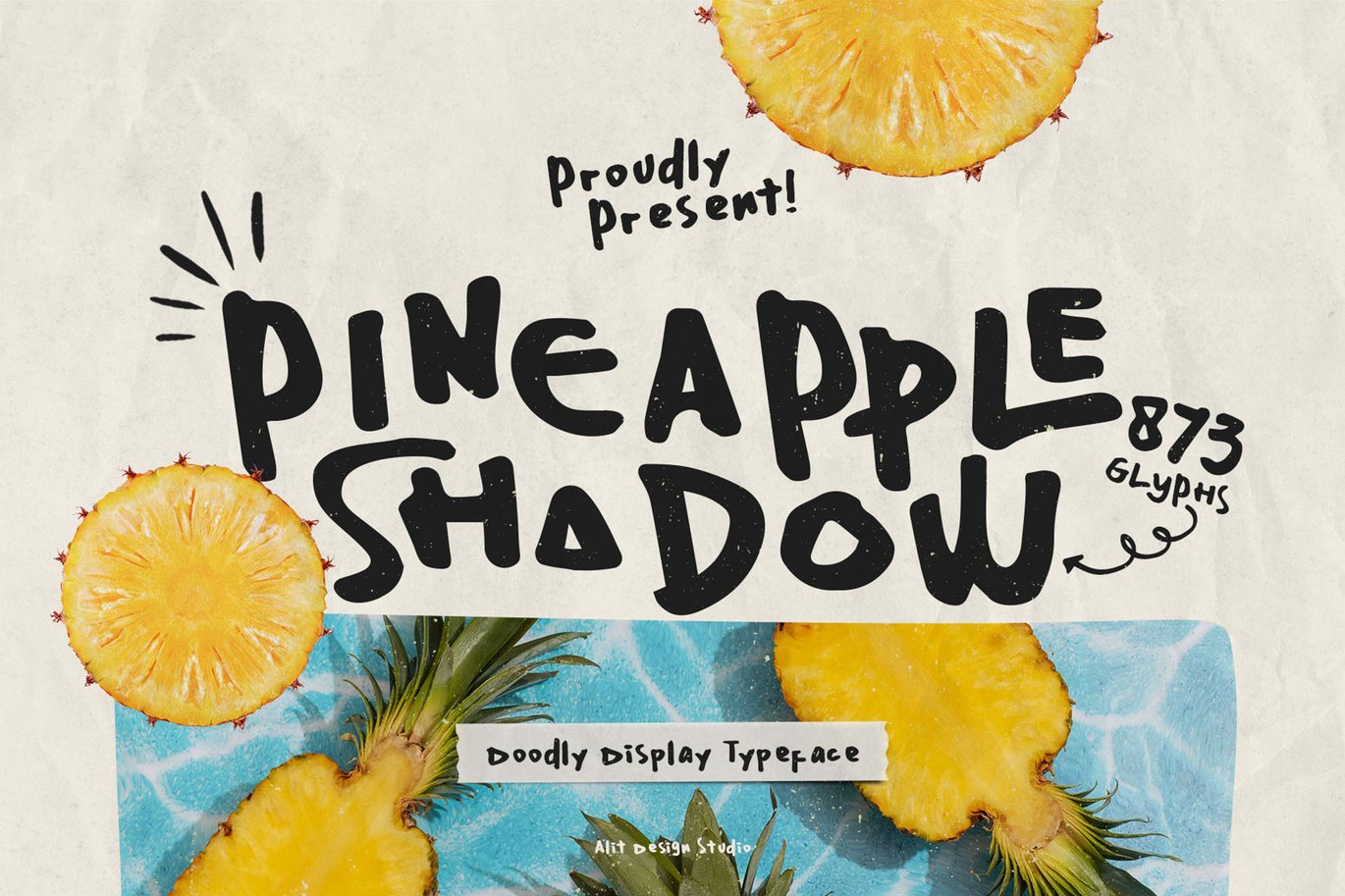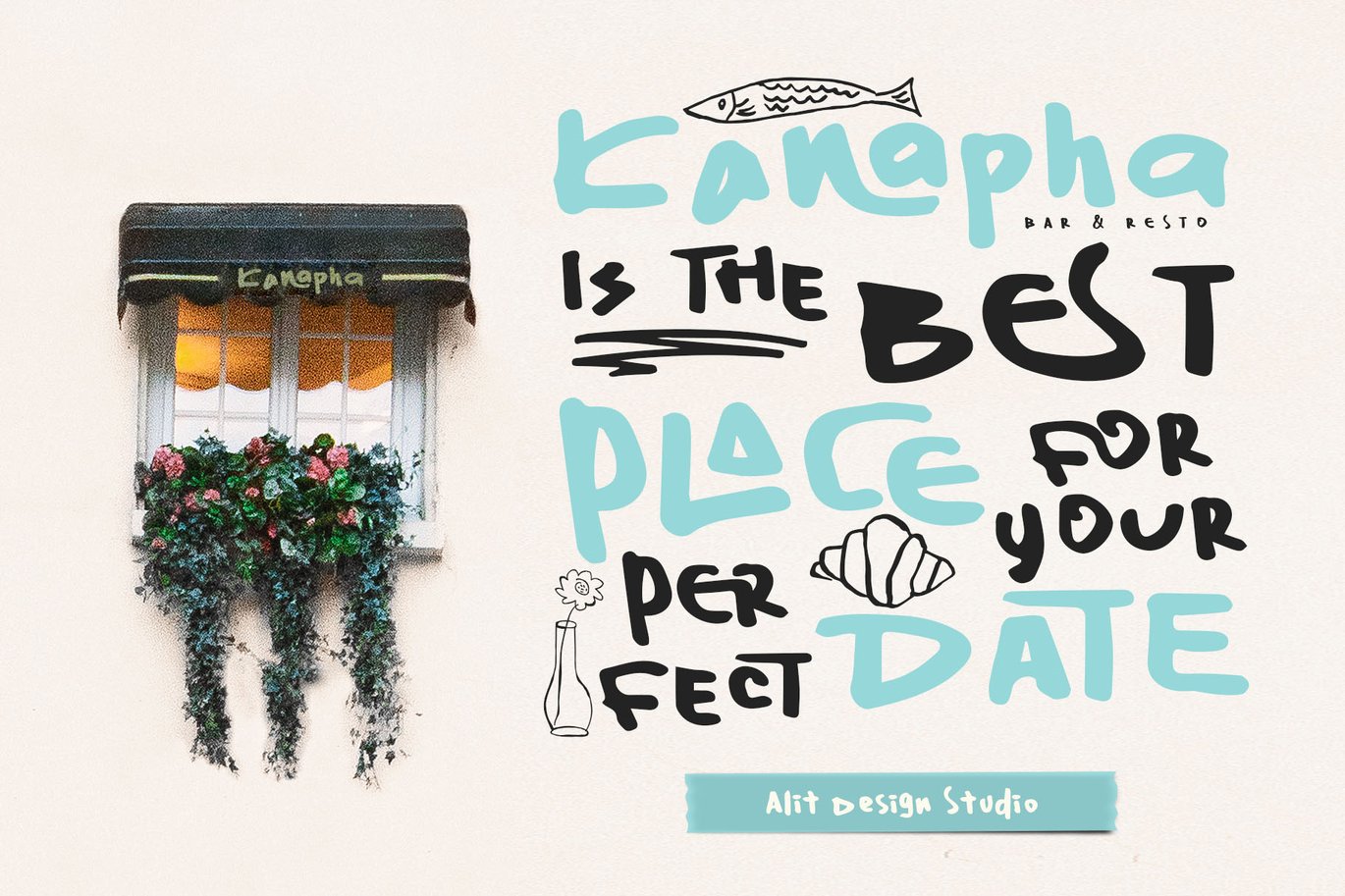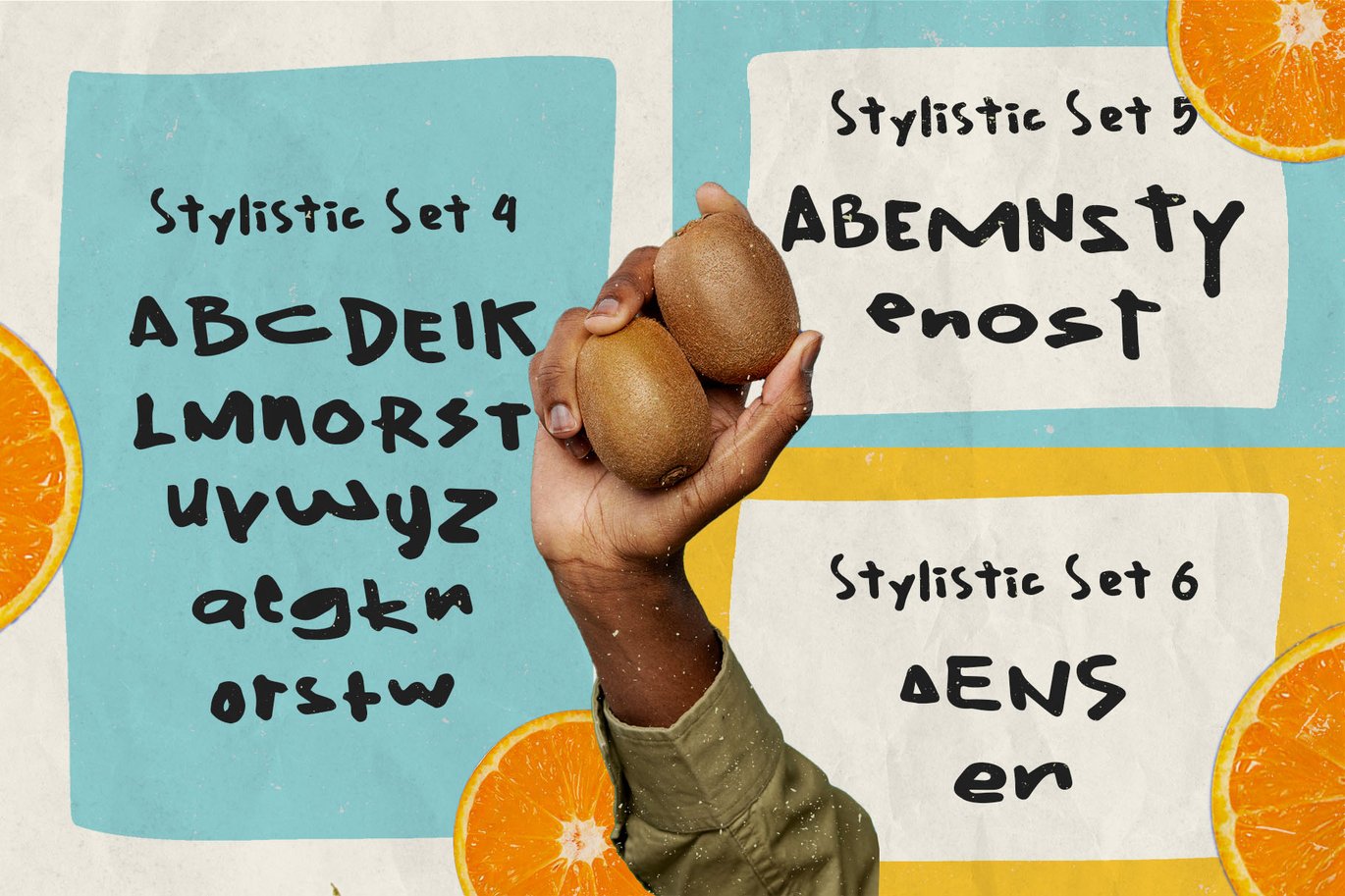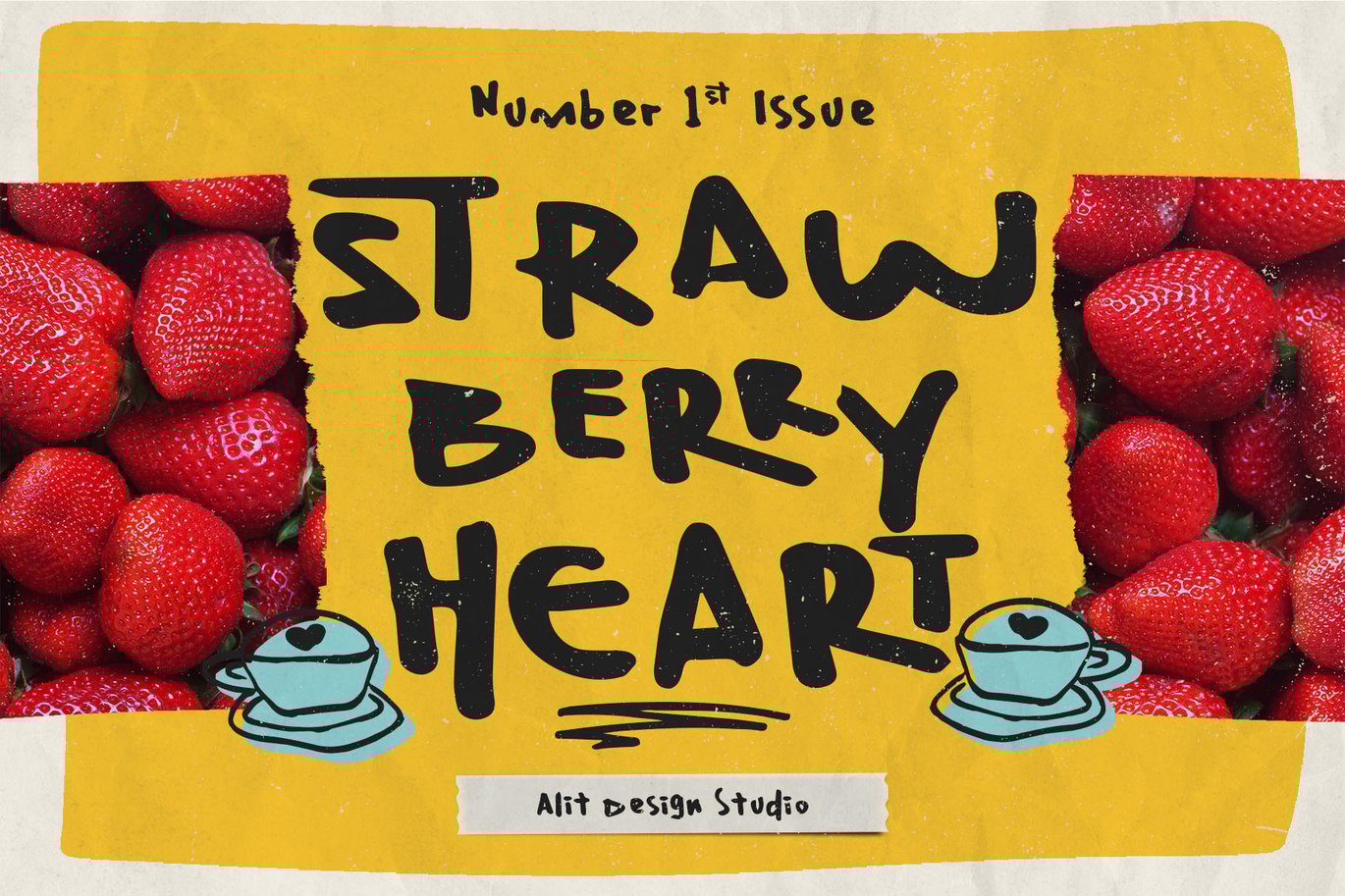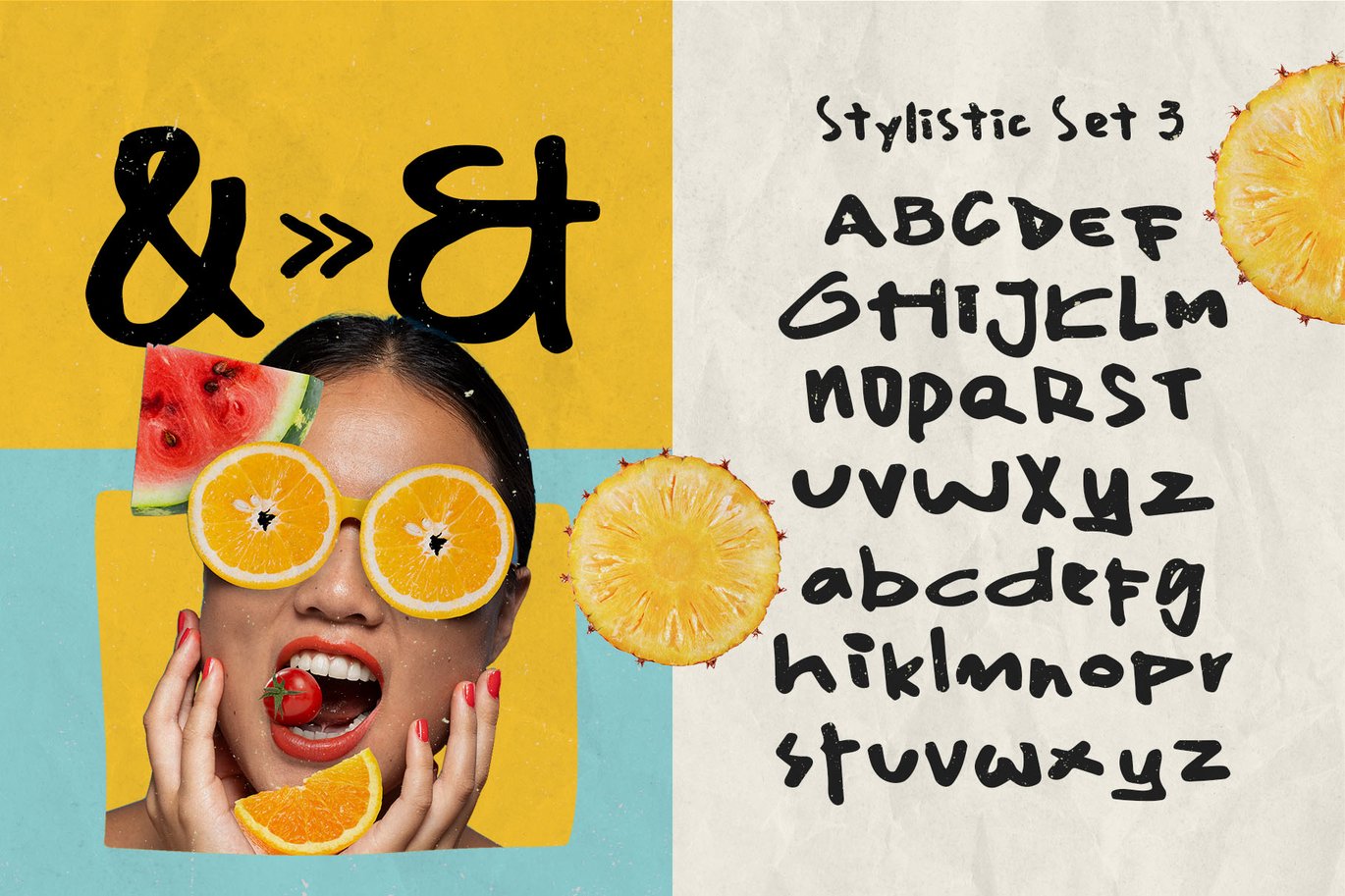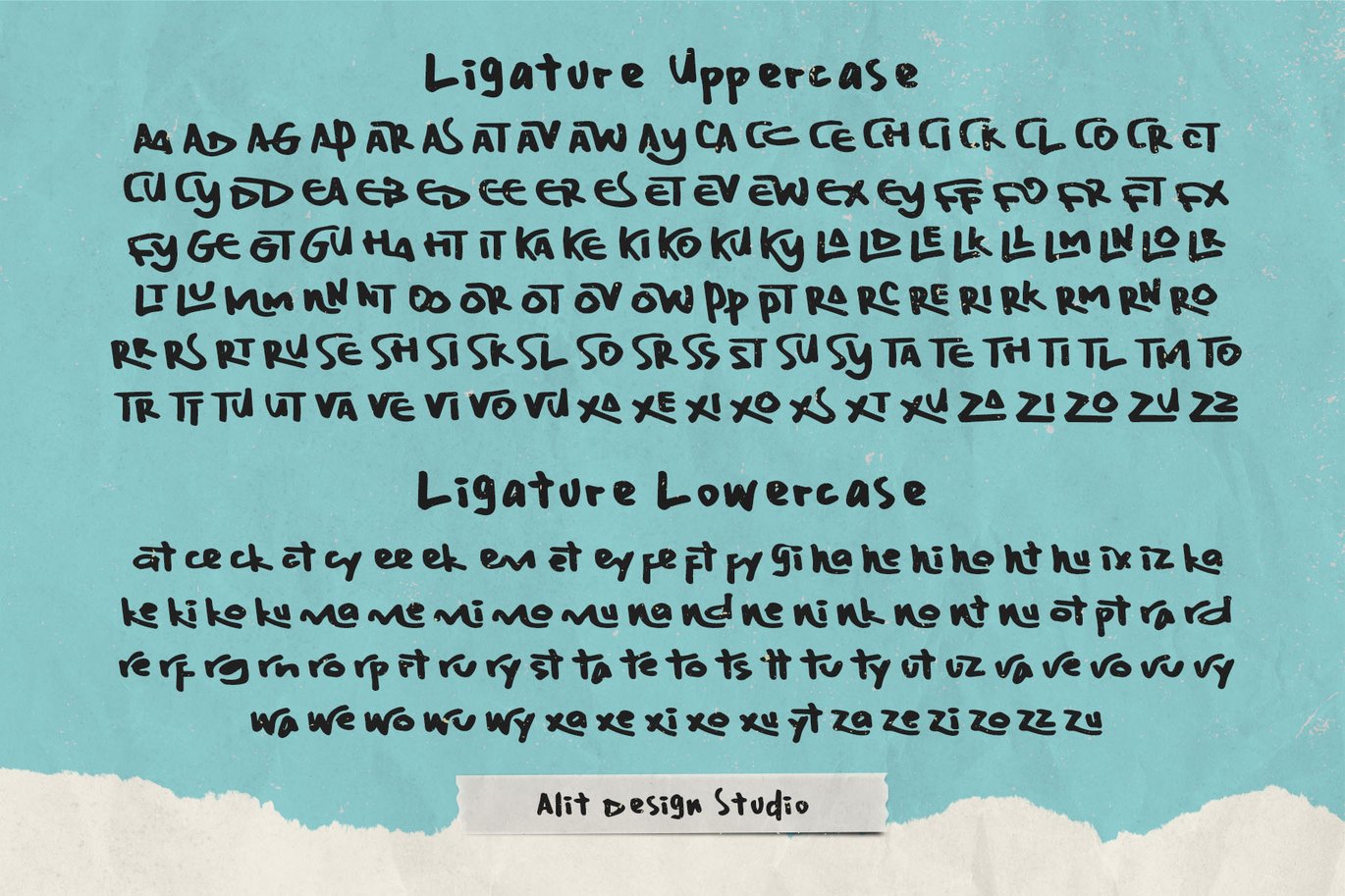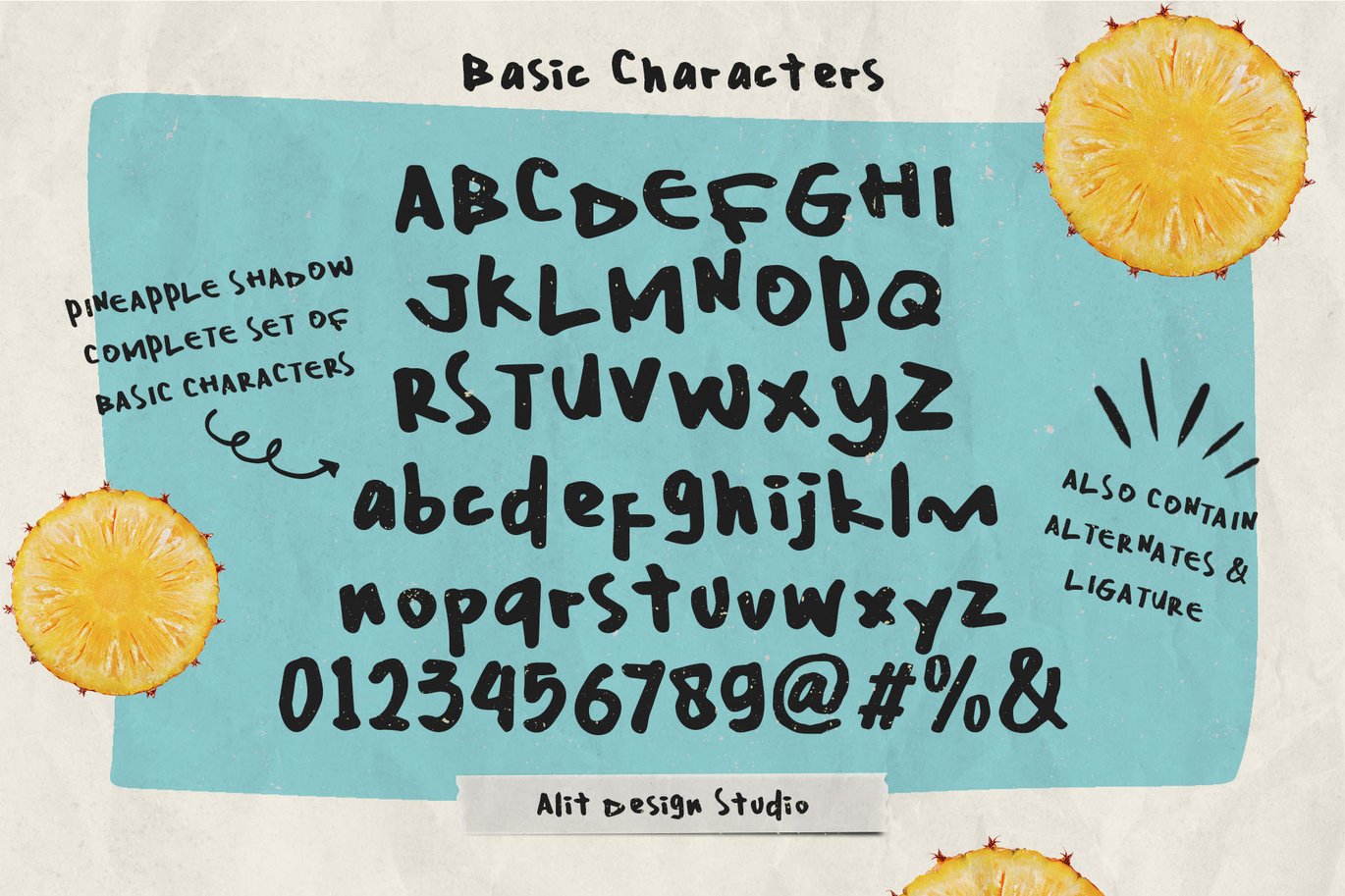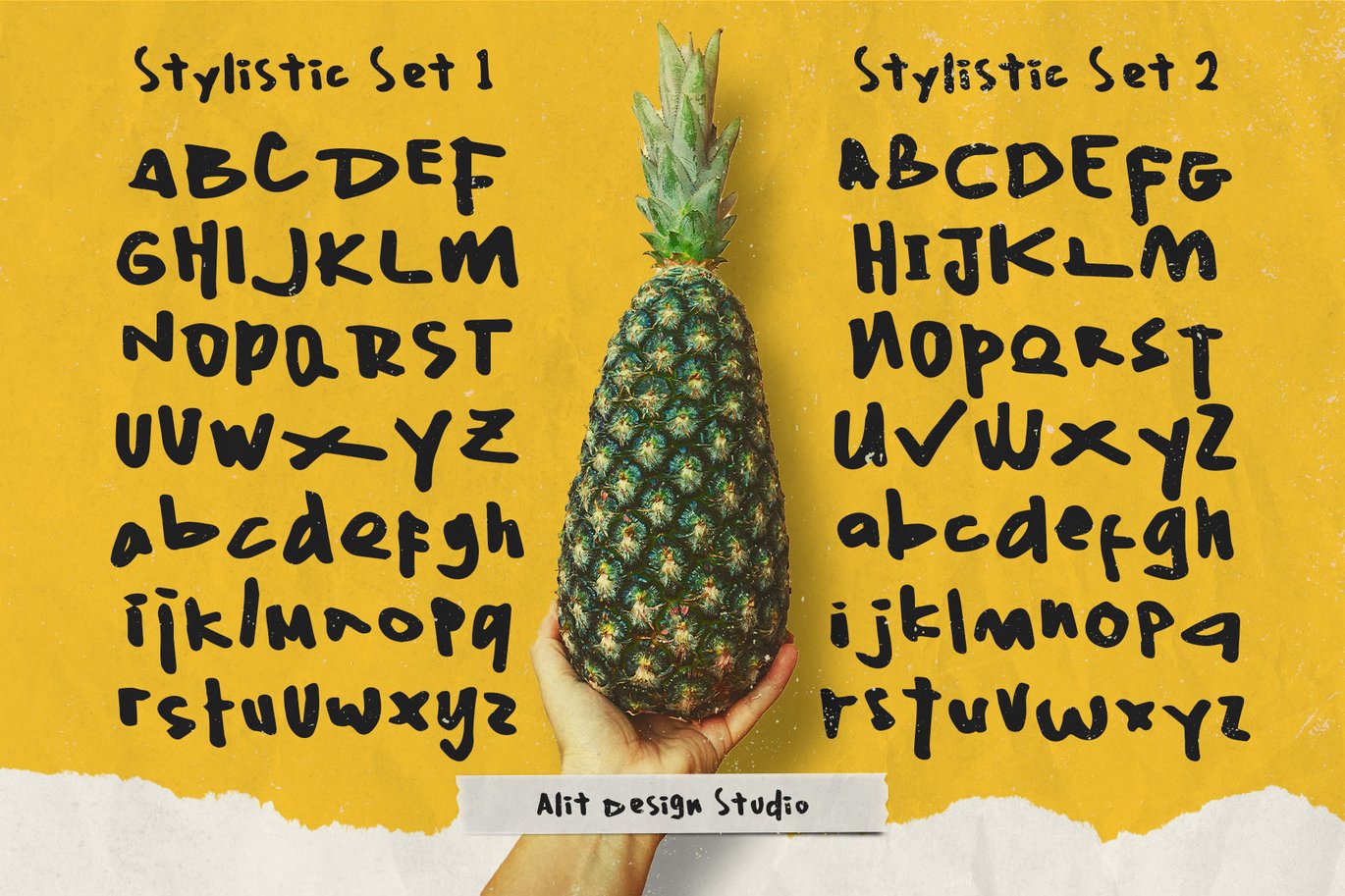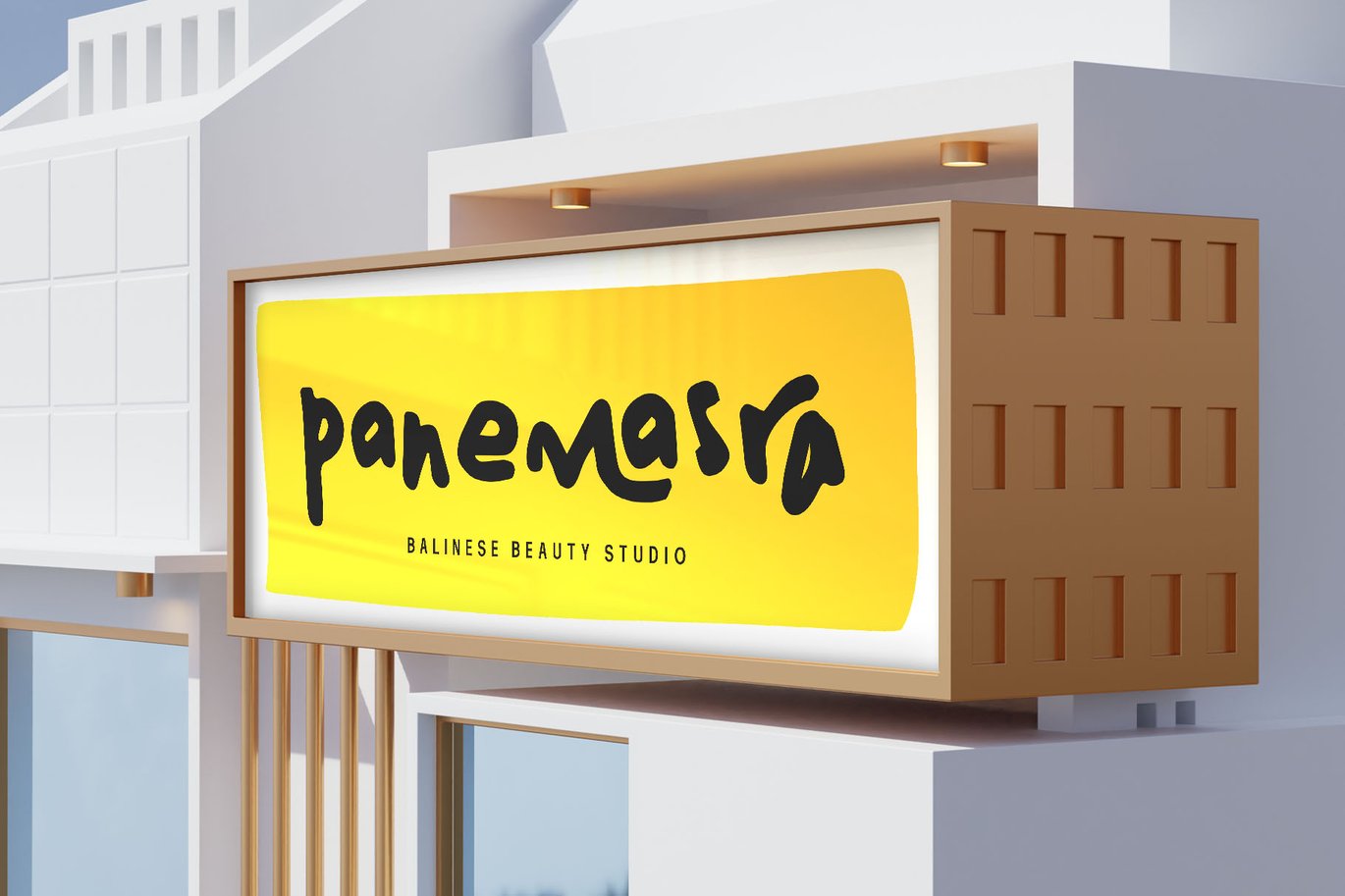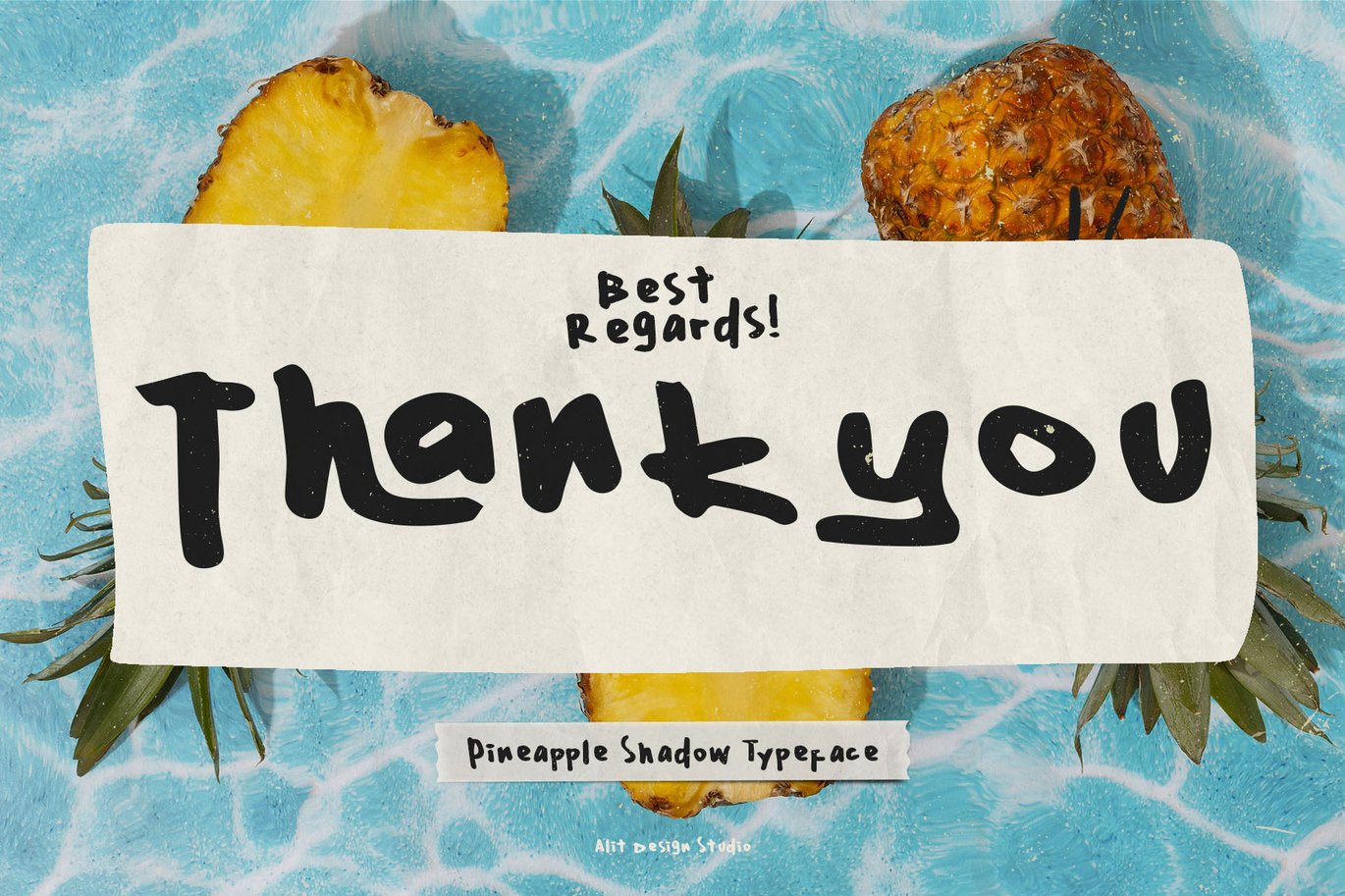
Pineapple Shadow Typeface
Introducing Pineapple Shadow Typeface: where the tranquil breeze of handwritten elegance meets the playfulness of tropical charm. Imagine lounging under swaying palm trees, sipping on a refreshing drink, as the sun casts dappled shadows through the foliage. That’s the essence captured in every stroke of Pineapple Shadow.
Crafted with meticulous care, this font exudes a relaxed yet refined vibe, perfect for projects seeking a touch of laid-back sophistication. Each letter flows effortlessly like a gentle island breeze, invoking a sense of calm and creativity. With its unique hand-drawn style, Pineapple Shadow adds a dash of personality to any design, whether it’s a beachside wedding invitation, a tropical-themed branding project, or a cozy vacation blog.
Let Pineapple Shadow Typeface transport you to a world where time slows down, and every word feels like a leisurely stroll on soft sand. Embrace the serenity of handwritten beauty with Pineapple Shadow, where every curve and contour whispers tales of sun-kissed shores and carefree adventures.